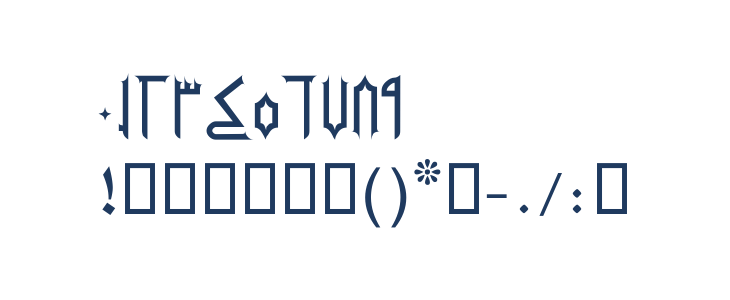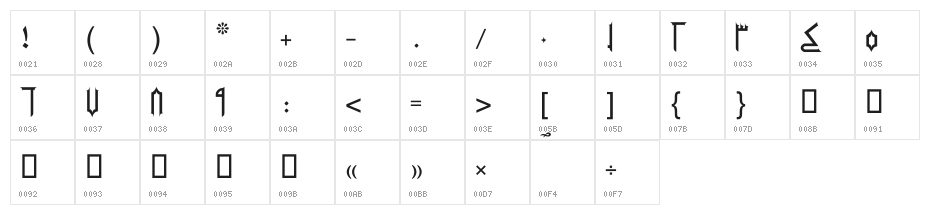
Kohnah Decor Font
Kohnah Decor Description
This font features a highly decorative and stylized design, reminiscent of ancient scripts or fantasy-themed typography. The characters are ornate, with intricate details and sharp, angular lines that give it a mystical and dramatic appearance. The font's unique style is characterized by its elaborate serifs and embellishments, making it stand out for creative and thematic projects. The overall aesthetic is bold and eye-catching, suitable for designs that require a touch of fantasy or historical flair.
| Proposed Projects | Ideal for fantasy book covers, game titles, movie posters, and themed event invitations. |